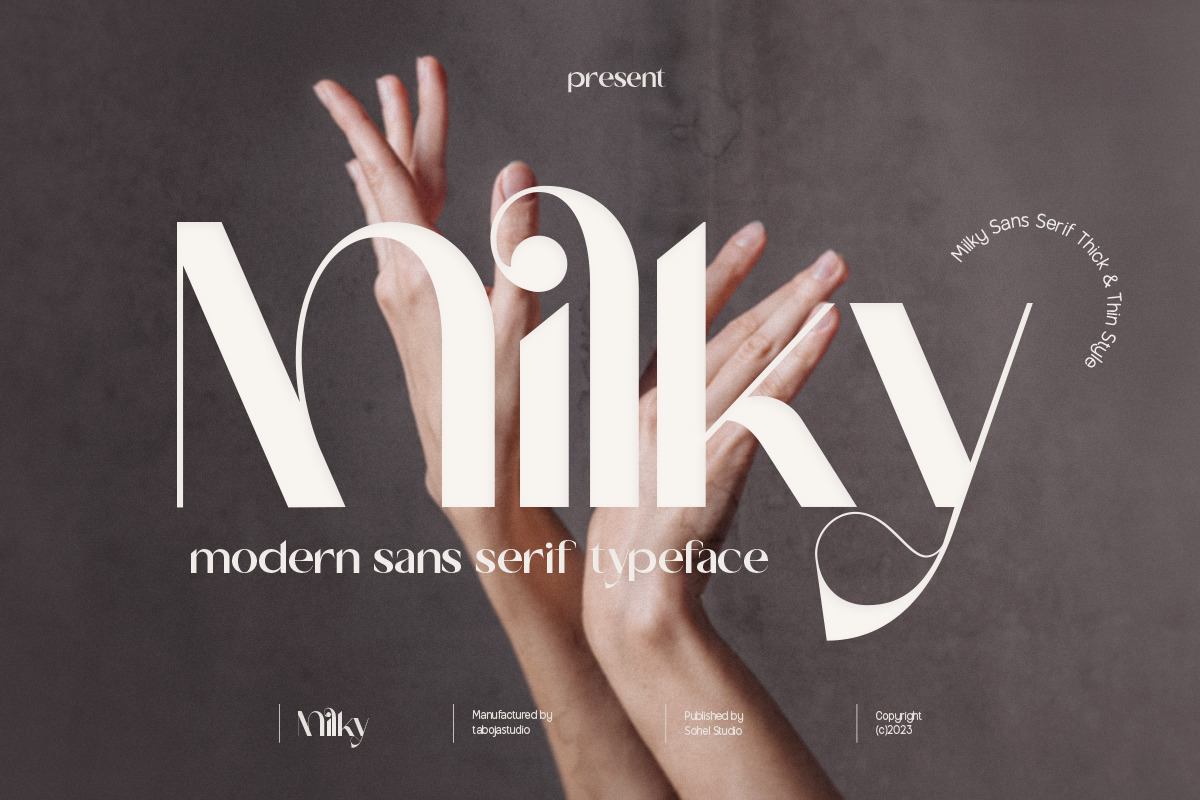
Milky | Display Typeface Free Download
The Milky | Display Typeface Free Download is a playful and bold font designed to make a statement in your designs. With its round, smooth edges and unique letterforms, this font is perfect for creating eye-catching headlines, posters, logos, and branding materials. Its friendly and modern design ensures your typography stands out, whether you're working on creative projects, events, or advertisements. The Milky typeface adds a fun and dynamic touch, making it ideal for brands that want to project a youthful and energetic vibe. Please note, for commercial use, a license purchase is required. However, you can easily download the Milky | Display Typeface Free Download for free for personal use and explore its potential. Download the Milky | Display Typeface Free Download today and elevate your designs with this fresh and fun display font.